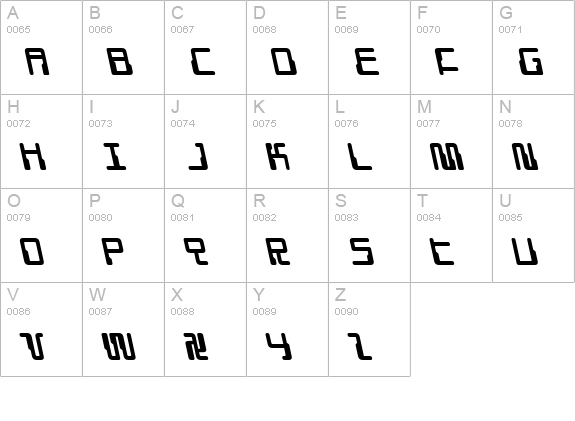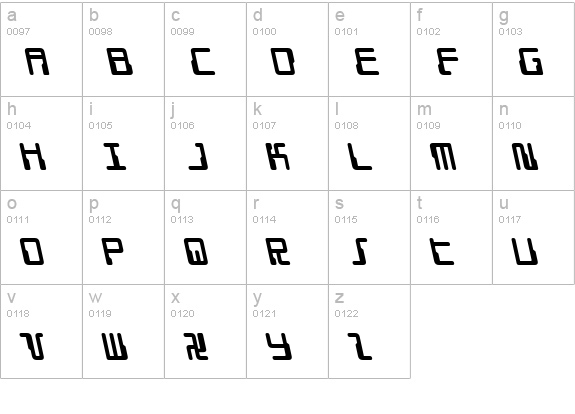
Droid Lover Leftalic font is a captivating display typeface that exudes a futuristic and technological vibe. Its sleek and modern design makes it perfect for projects that require a touch of innovation and sophistication. The slanted italic style adds a dynamic and energetic feel to any text, making it stand out in a crowd. What's even better is that Droid Lover Leftalic font is available for free download at FontsMarket.com. This means you can easily access this stunning font without any cost, making it a valuable addition to your font collection. Whether you're working on a creative project, designing a website, or crafting eye-catching graphics, Droid Lover Leftalic font is sure to elevate your work to the next level. Download it now and unleash your creativity with this stylish and modern typeface.